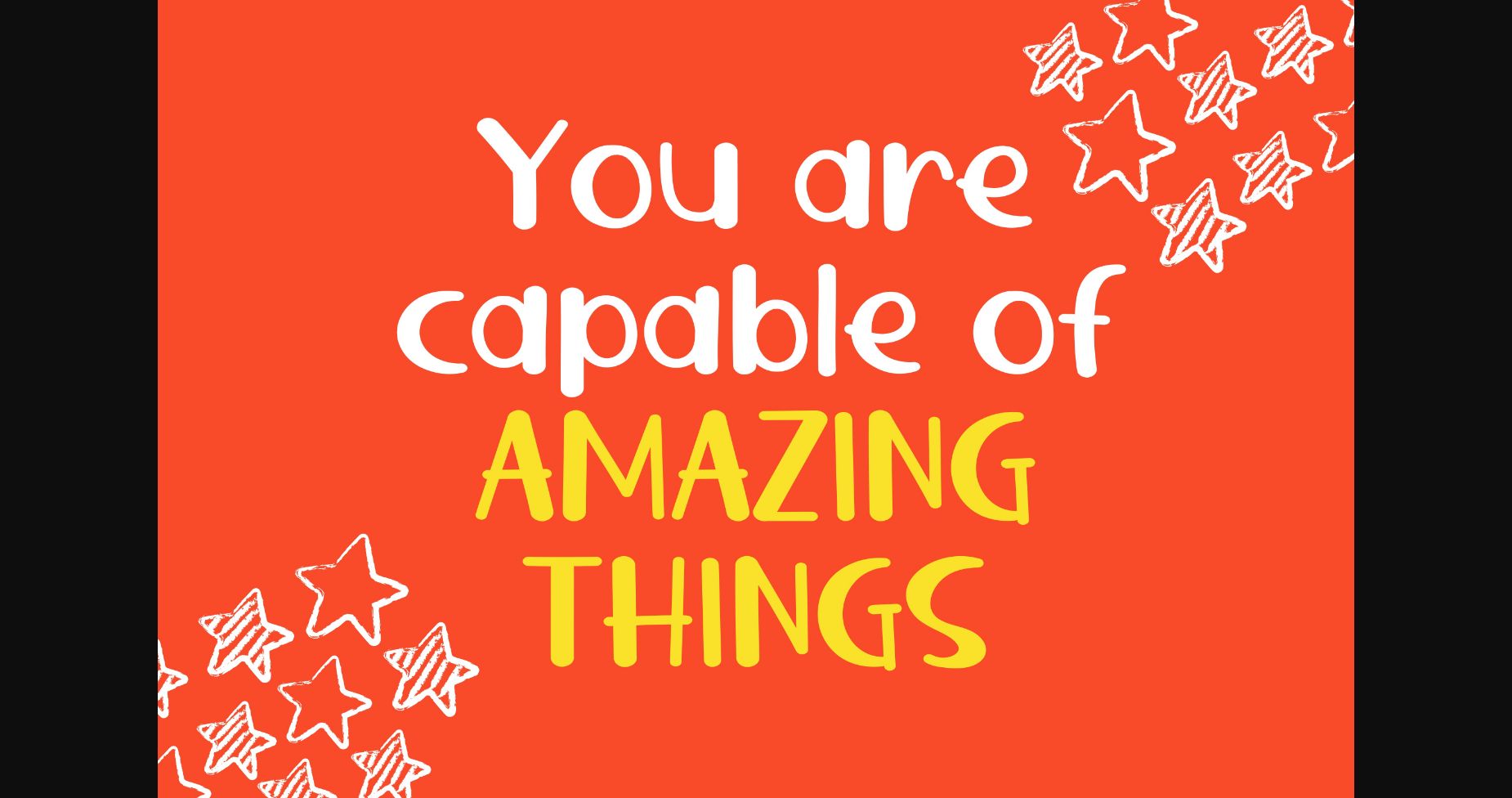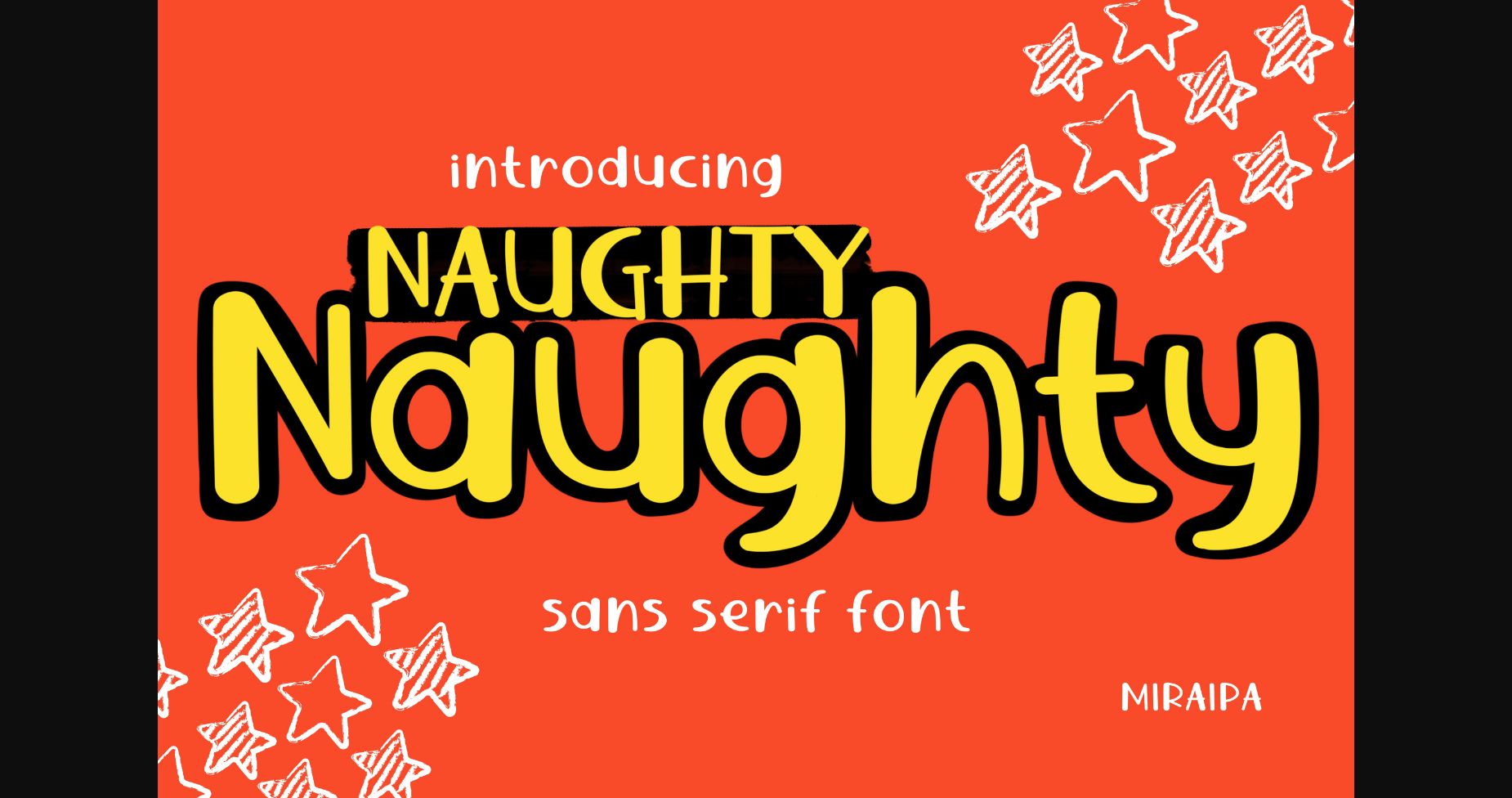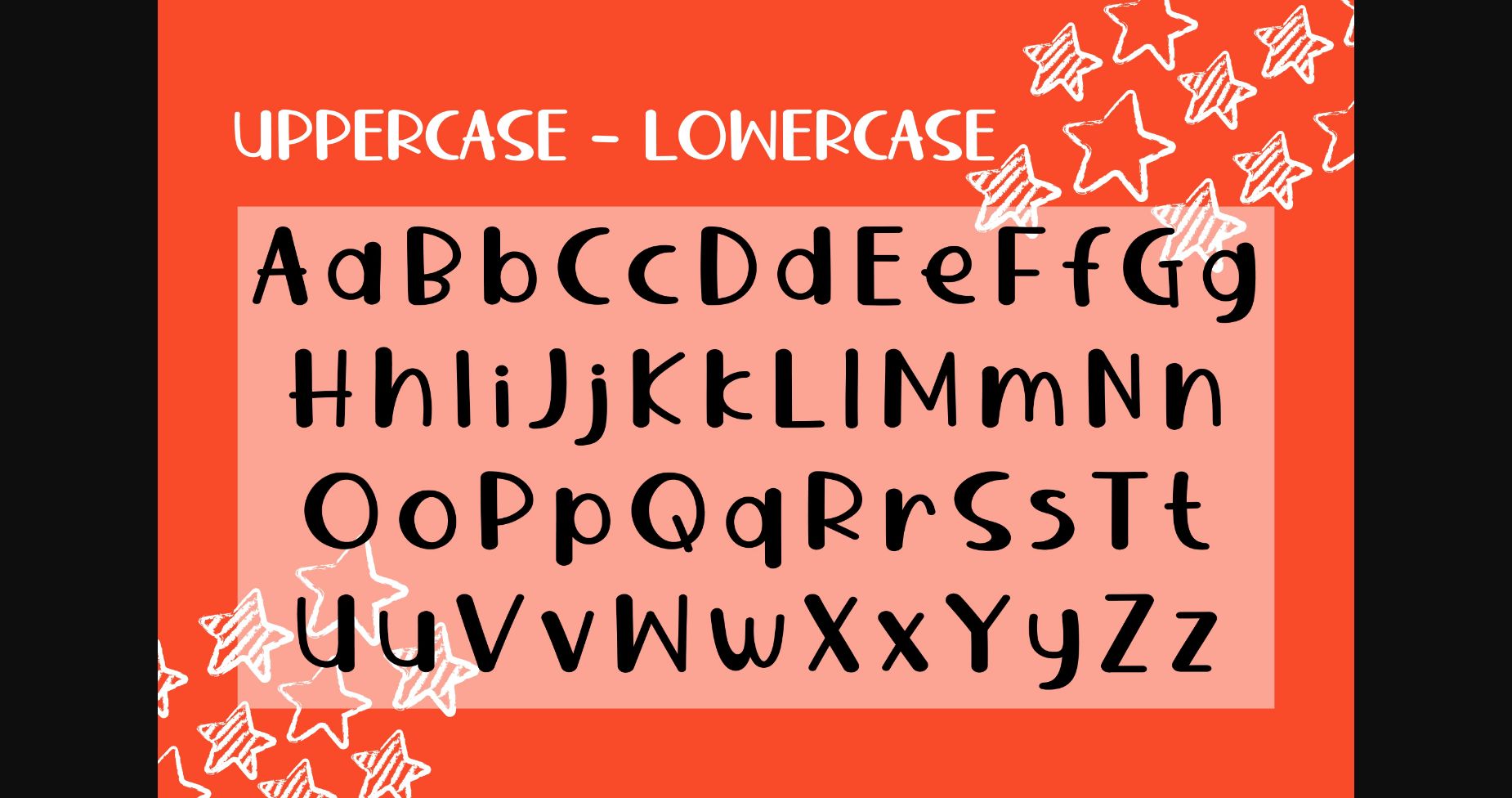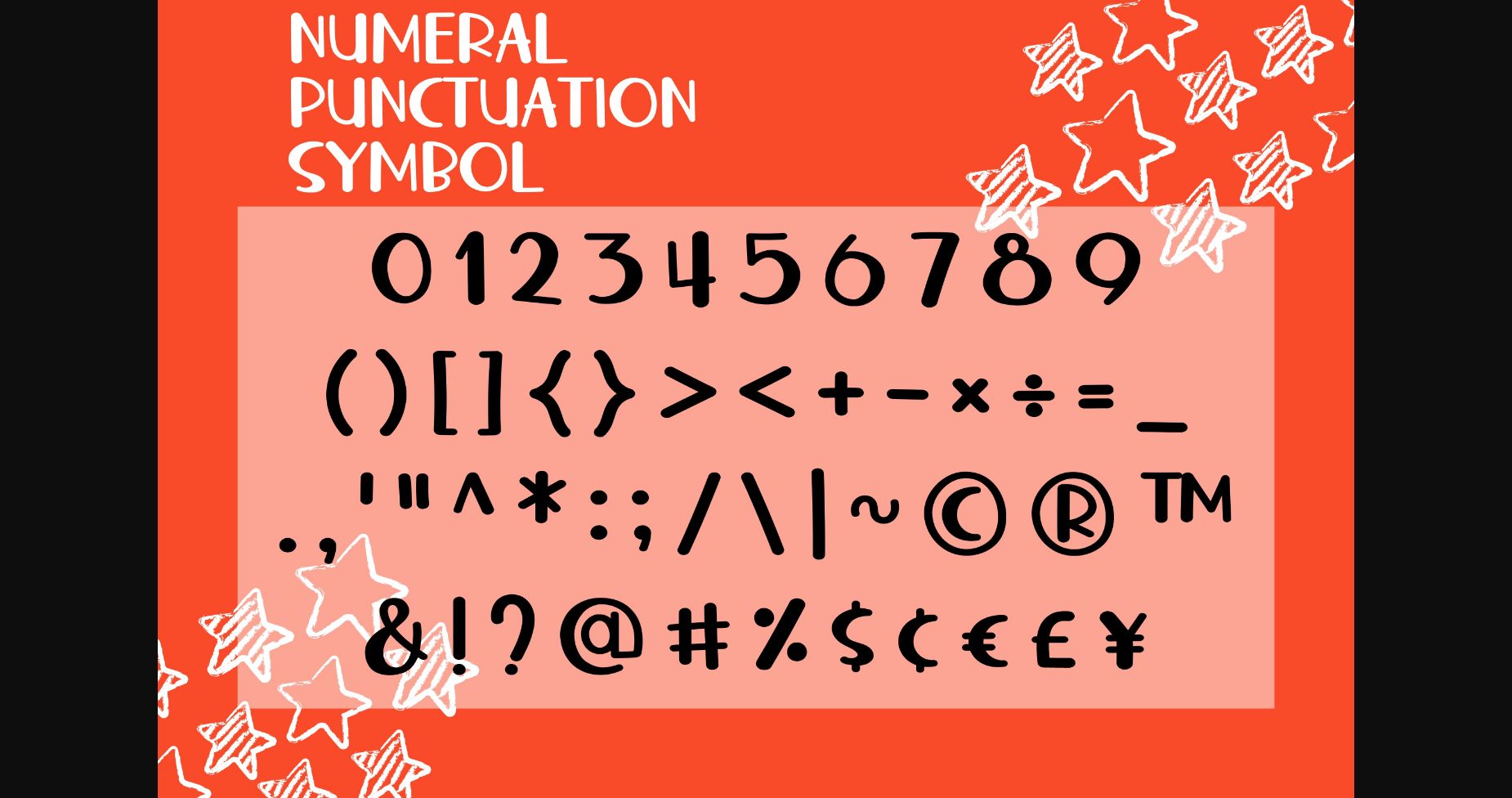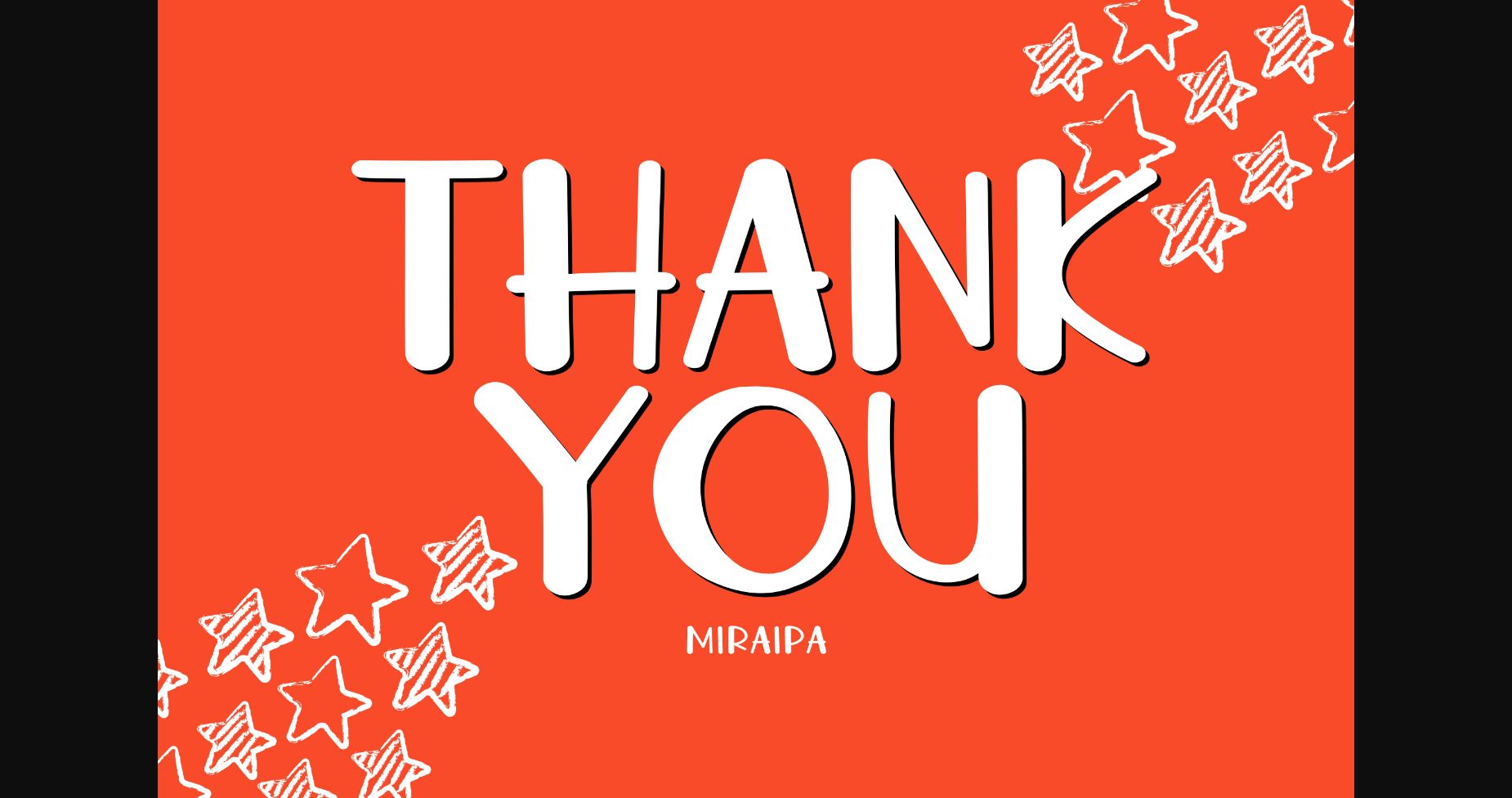
About Naughty Font
Naughty is a lovely and friendly handwritten sans serif font style. It would be awesome for your projects or diary planner. You can also use this lovely font for Easter, back to school, weddings, party decorations, invitations, Fall, Halloween, Christmas, posters, blogs, clothing, child-related designs, greeting cards, and social media posts.